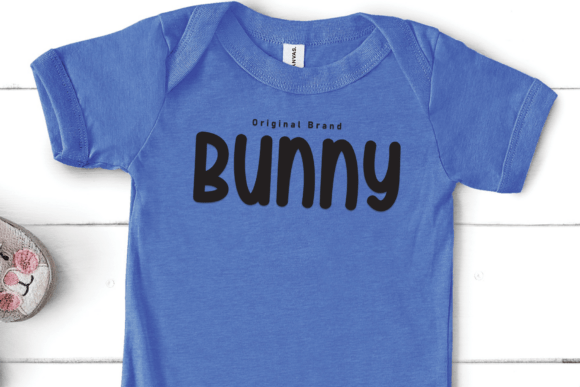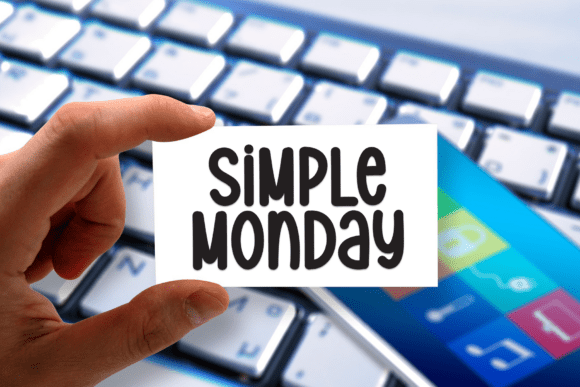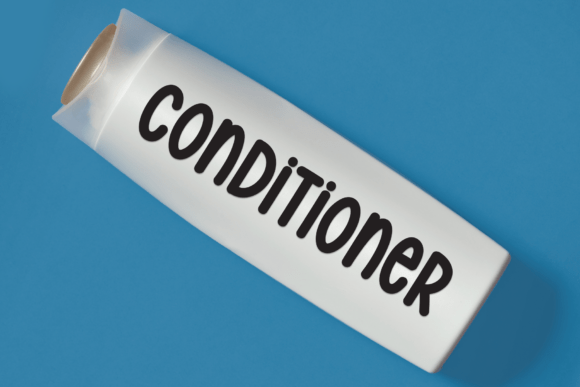
Introduction to Love Baby Bear Font
Do you remember the moment when you stumbled upon the perfect font for your creative project? The one that made your design come alive and radiate the emotions you wanted to convey? For many of us, that moment is a cherished memory, and it’s what makes us fall in love with design all over again. The Love Baby Bear Font is one such discovery that will leave you spellbound and eager to unleash its magic in your next project.
This charming handwritten display font is a treasure trove of elegance, simplicity, and warmth, making it an ideal design resource for any creative endeavor. Whether you’re crafting wedding invitations, greeting cards, or any other project that requires a touch of whimsy, the Love Baby Bear Font is sure to add a breath of fresh air to your design narratives.
Key Features of Love Baby Bear Font
- Unique, hand-drawn design for a creative project, making it a perfect design resource for those seeking a playful touch.
- High-quality font with a transparent background, allowing for seamless integration into various design elements.
- Includes a range of glyphs and characters, including uppercase and lowercase letters, numbers, and punctuation marks.
- Perfect for use in various design projects, such as children’s books, greeting cards, and social media graphics.
- Easy to customize and use, making it an excellent choice for designers and artists working on creative projects.
Honest Review: Love Baby Bear Font
I recently had the chance to work with the Love Baby Bear Font, and I must say, it’s a delightful addition to any design project. As a designer, I’m always on the lookout for high-quality fonts that can elevate my work, and this one definitely delivers.
One of the things that stood out to me about the Love Baby Bear Font is its versatility. Whether you’re working on a children’s book, a greeting card, or even a logo for a nursery, this font is sure to add a touch of whimsy and charm. I love how it pairs well with other fonts, and the transparent background makes it easy to customize and adjust to your design needs.
One of the limitations of the Love Baby Bear Font is its limited character set. While it’s perfect for short texts and headlines, it may not be the best choice for longer blocks of text. ⚠️
Overall, I’m really impressed with the Love Baby Bear Font. It’s a great addition to any design library, and I would definitely recommend it to fellow designers and creatives.
The Love Baby Bear Font is a high-quality design resource perfect for creative projects that require a touch of whimsy and charm. With its transparent background, this font is ideal for use in various design applications.
To get the most out of the Love Baby Bear Font, use it in creative ways, such as combining it with other fonts or using it in bold, colorful designs. You can also experiment with different font sizes and styles to create unique visual effects.
The Love Baby Bear Font is ideal for use in various design applications, including children’s book illustrations, greeting cards, and social media graphics. Its playful, whimsical style makes it perfect for projects that require a touch of fun and personality.